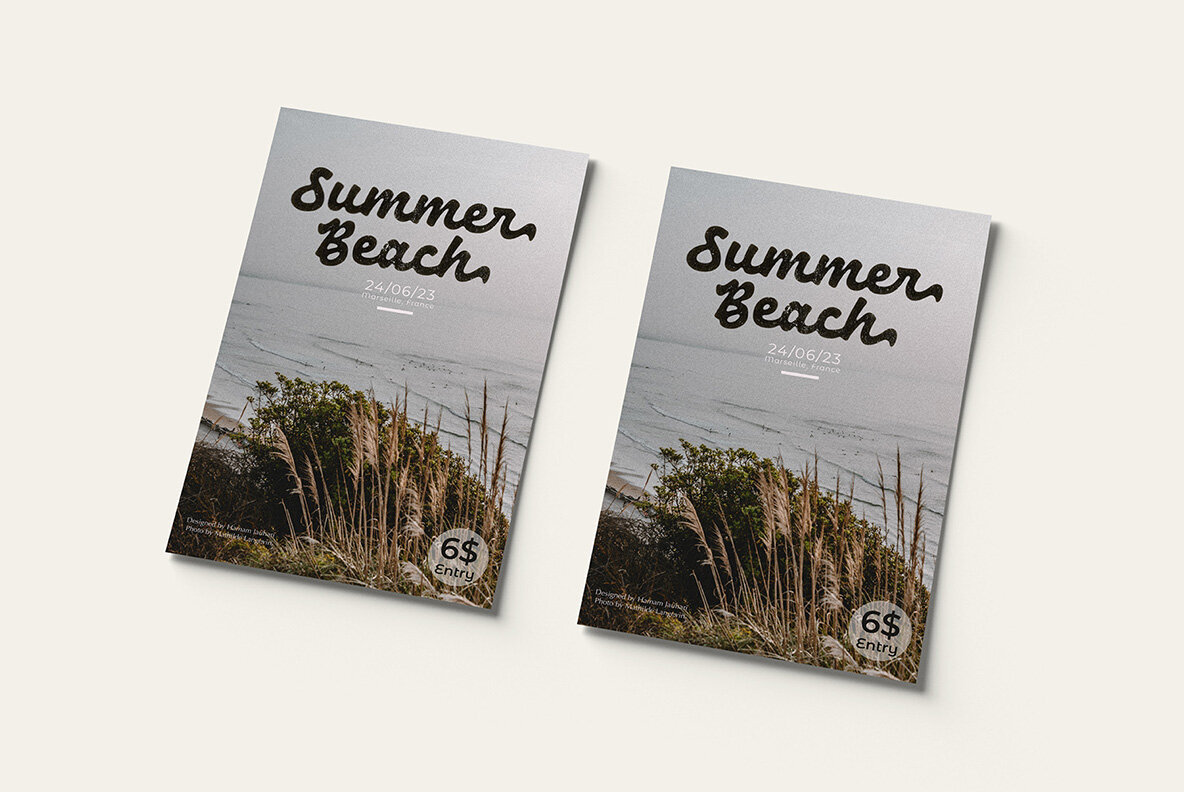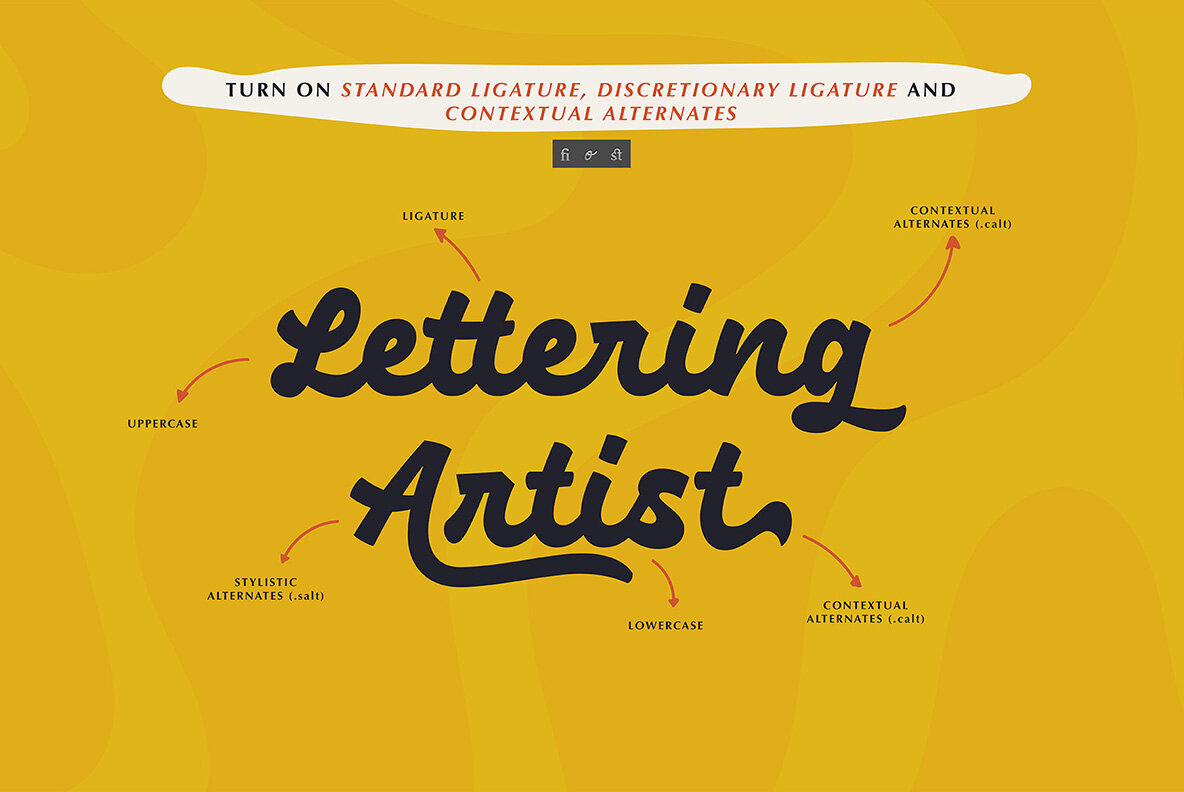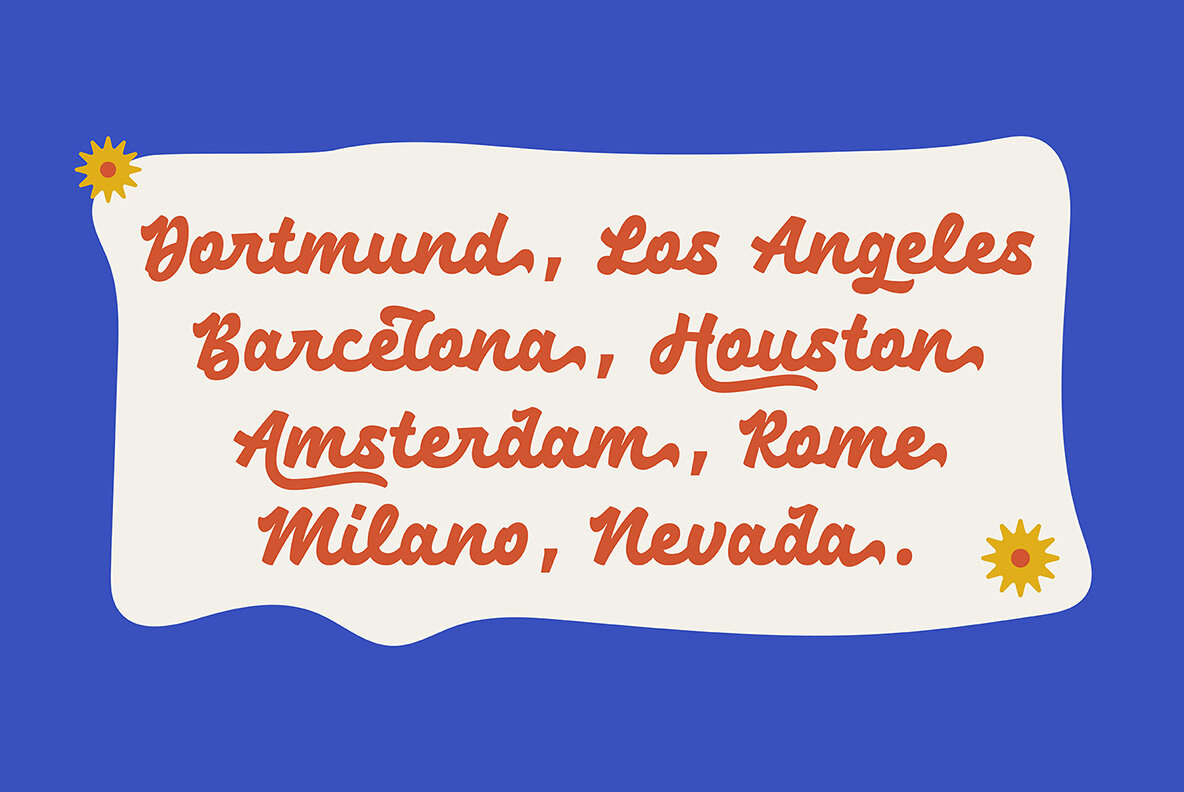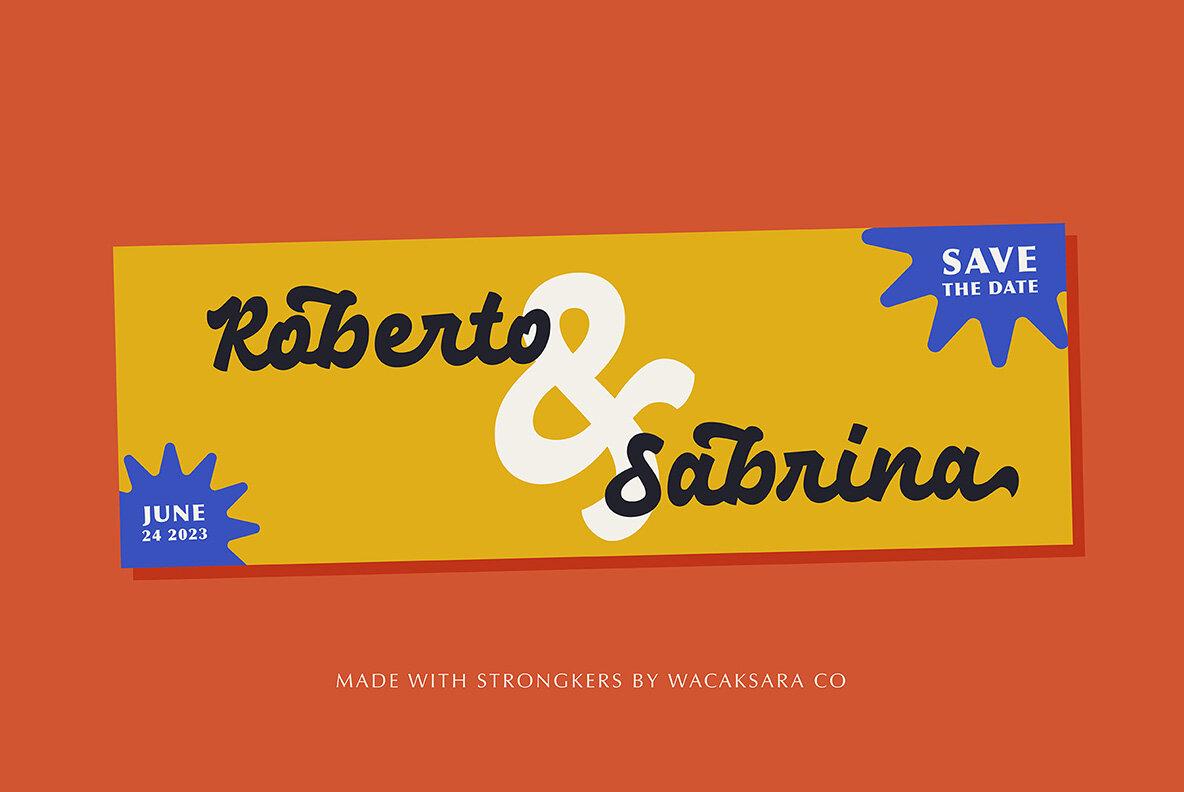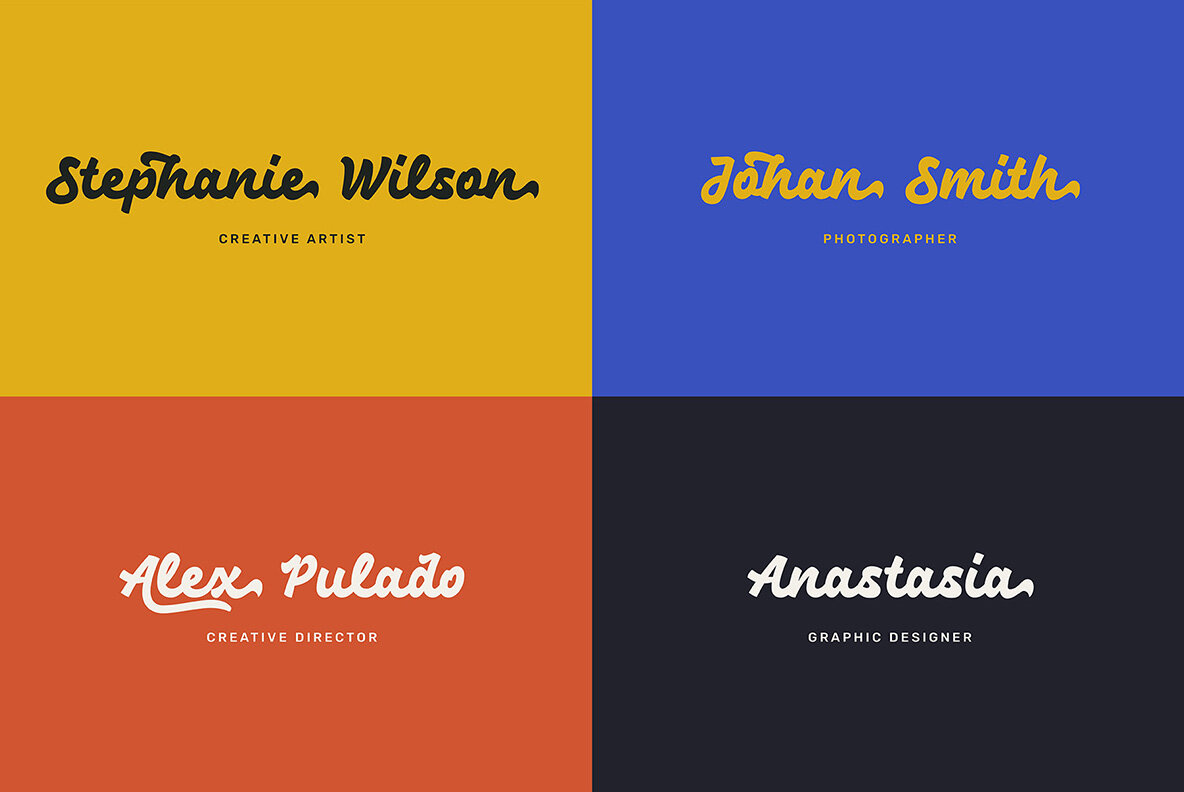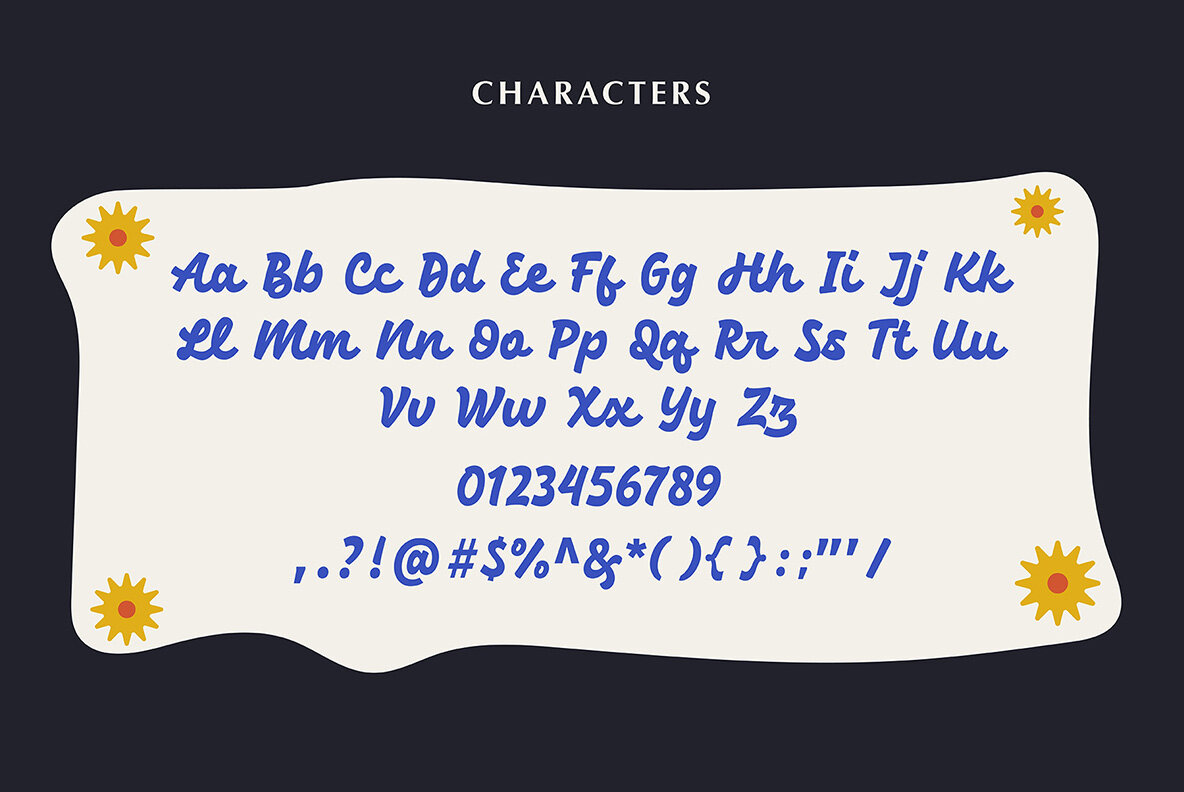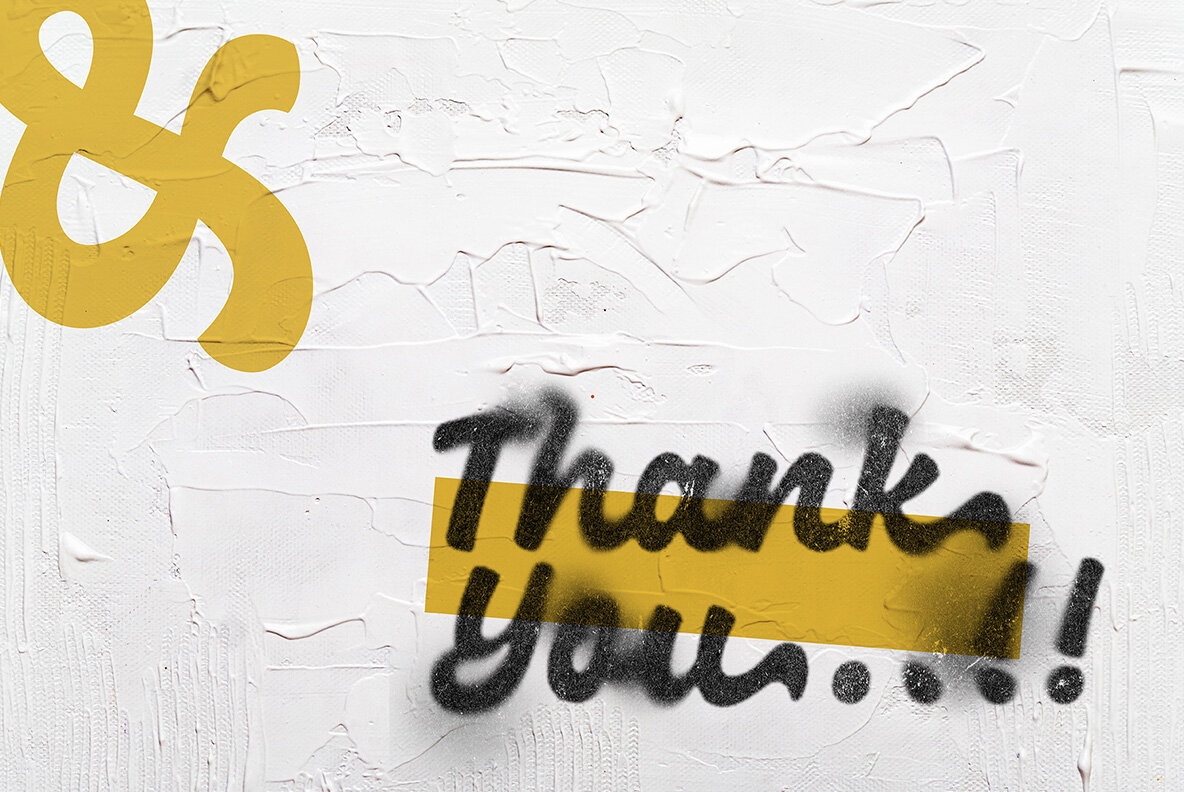
Strongkers Script Font
Strongkers Script
Introducing Strongkers Script Font, the perfect addition to your design toolkit. This exquisite hand-lettered font features a bold script style that is versatile and suitable for a wide range of design needs. Whether you're creating a logo, book cover, apparel design, magazine layout, web design, cards, headers, letterhead, invitations, or product packaging, Strongkers Script Font is sure to make your projects stand out.
Inspired by the beauty of manual lettering, Strongkers Script Font includes advanced features such as ligatures, contextual alternates, and multilingual support, making it a versatile tool for any project. With its bold and expressive style, Strongkers Script Font is the perfect way to enhance your designs and bring your creative vision to life. Don't settle for ordinary fonts – choose Strongkers Script Font and make your designs truly extraordinary.